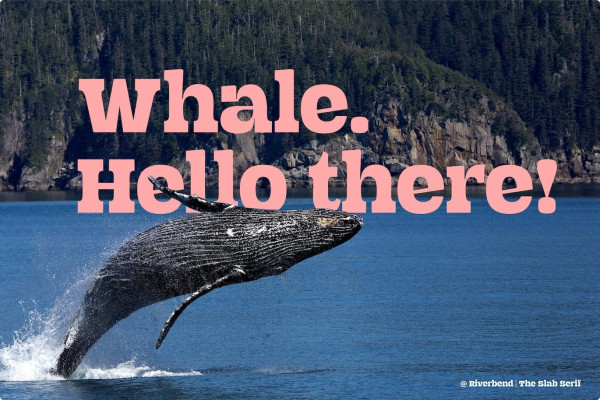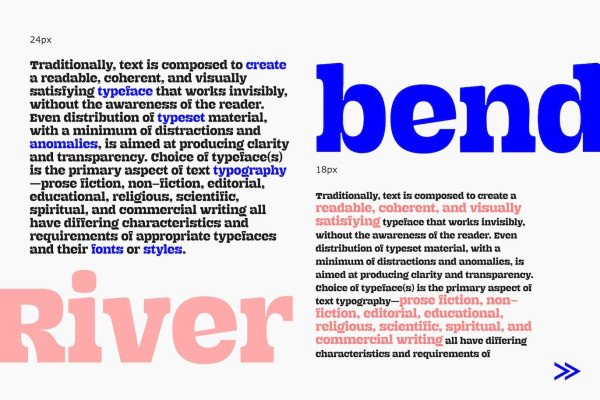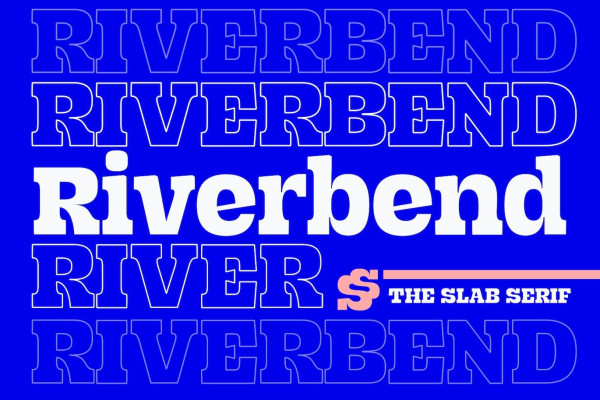
Riverbend Font
Riverbend Font is a witty and energetic font that embodies the distinctive retro aesthetic. With its playful curves and bold, striking strokes, this font adds a touch of nostalgia and creativity to various design projects. It’s perfect for attention-grabbing headlines, posters and art displays